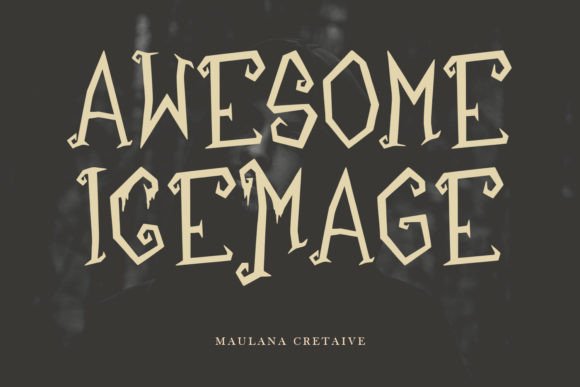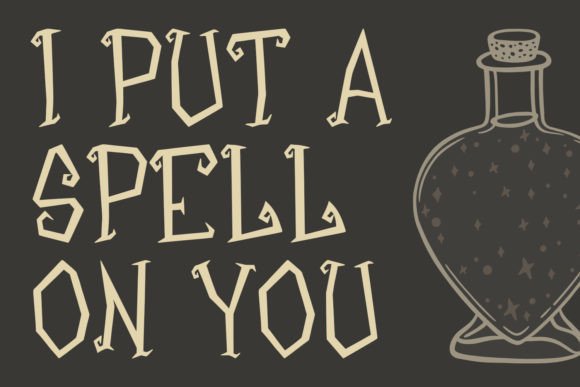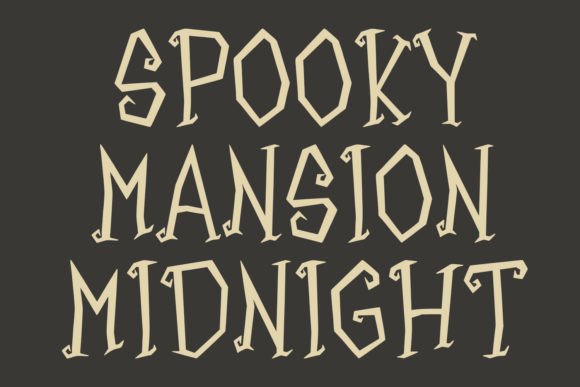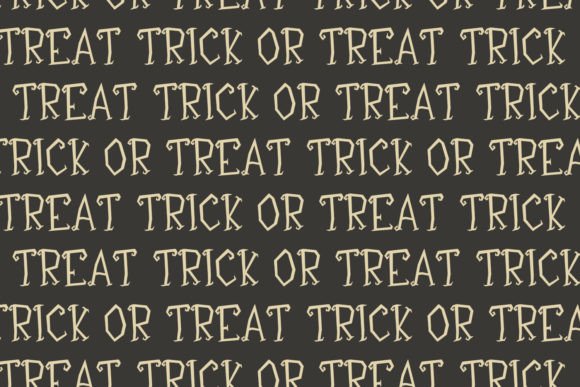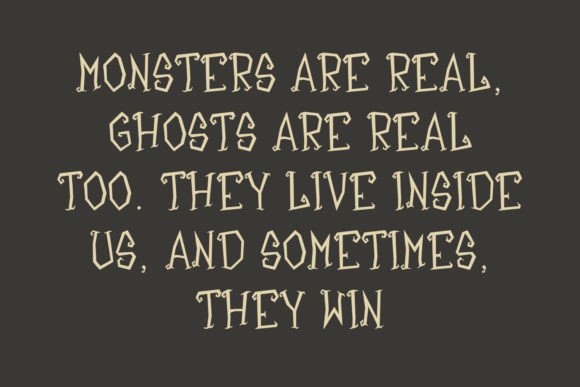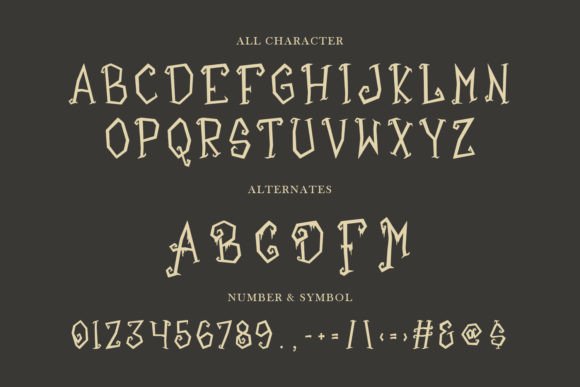
Unleash the Spooky Charm with Ancient Witchem Font: A Halloween Display Typeface
As the spookiest season approaches, designers and crafters are on the lookout for the perfect typography to add a touch of eeriness to their creations. Look no further than the Ancient Witchem Font, a Halloween display typeface that is sure to cast a spell on your audience. In this article, we’ll dive into the features and benefits of this unique font, and explore how you can use it to create stunning works of art.
What is Ancient Witchem Font?
Ancient Witchem Font is a display typeface designed specifically for Halloween-themed projects. With its bold, eerie, and mystical feel, this font is perfect for creating eye-catching logos, social media graphics, movie titles, book covers, and more. The font’s unique design combines elements of script and serif typography, making it versatile and suitable for both short and long texts.
Key Features of Ancient Witchem Font
- Unique and eye-catching design: Ancient Witchem Font boasts a distinctive and captivating design that is sure to grab attention.
- Halloween-themed: The font’s spooky and mystical feel makes it perfect for Halloween-themed projects.
- Versatile: Suitable for logos, social media graphics, movie titles, book covers, and more.
- Script and serif elements: Combines the elegance of script typography with the sophistication of serif fonts.
- Easy to read: Despite its bold and ornate design, Ancient Witchem Font remains legible, even in smaller sizes.
Use Cases for Ancient Witchem Font
Ancient Witchem Font is an incredibly versatile typeface that can be used in a variety of design projects, including:
- Logo design: Create a memorable and spooky logo for your business or brand.
- Social media graphics: Add a touch of Halloween magic to your social media posts and stories.
- Movie titles: Create eye-catching title sequences for horror movies or Halloween-themed films.
- Book covers: Design captivating book covers for horror novels, Halloween-themed children’s books, or spooky cookbooks.
- Short and long text: Use Ancient Witchem Font for short phrases or longer passages, making it perfect for flyers, posters, or blog posts.
Pairing Ancient Witchem Font with Other Fonts
To create a stunning work with Ancient Witchem Font, consider pairing it with other fonts that complement its unique style. Some suggestions include:
- Script fonts: Pair Ancient Witchem Font with elegant script fonts for a sophisticated and spooky look.
- Serif fonts: Combine Ancient Witchem Font with classic serif fonts for a bold and refined design.
- Sans-serif fonts: Use Ancient Witchem Font alongside modern sans-serif fonts for a striking contrast.
Tips for Working with Ancient Witchem Font
To get the most out of Ancient Witchem Font, keep the following tips in mind:
- Experiment with font sizes: Play with different font sizes to create visual hierarchy and emphasis.
- Use contrasting colors: Pair Ancient Witchem Font with contrasting colors to make your design pop.
- Add textures and effects: Enhance your design with textures, shadows, or other effects to give it a spooky glow.
Ancient Witchem Font is a unique and captivating Halloween display typeface that is sure to add a touch of spookiness to your designs. With its versatile design, bold style, and ease of use, this font is perfect for designers and crafters looking to create stunning works of art. Whether you’re designing logos, social media graphics, or book covers, Ancient Witchem Font is the perfect choice for your next project.
So, don’t be afraid to unleash your creativity and cast a spell on your audience with Ancient Witchem Font. Get creative, experiment with different designs, and make the most of this incredible Halloween display typeface!